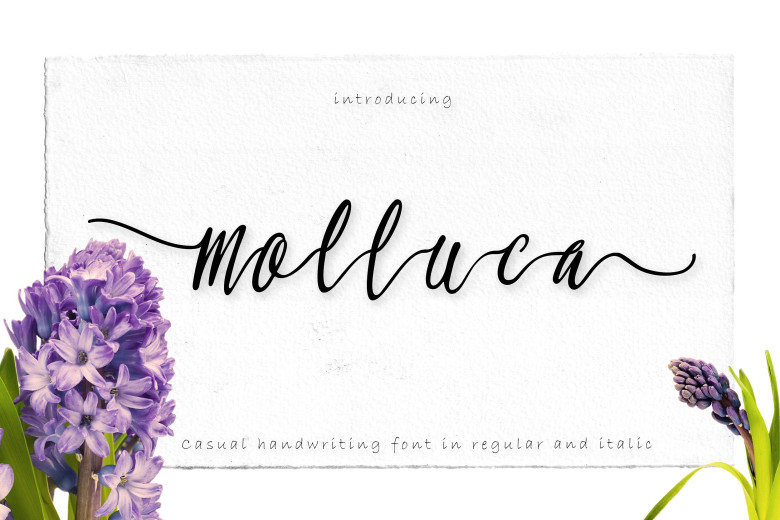
Molluca Script Font
Continue to be a beautiful handwriting. Add it to your fonts collection, as it will be of great help to your design projects. Introducing Molluca Script Font! Molluca Script designed by Greataris. Molluca brings a wider concept of handwriting between letters. Letters more clearly and gives a more beautiful impression. Molluca offers the same regular and italic types that give the same expensive impression in every use.